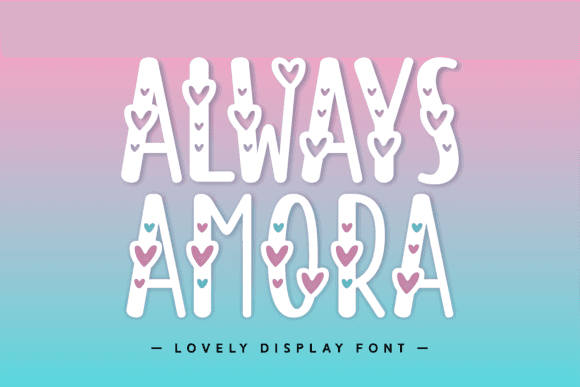
Always Amora Font for Cricut, Silhouette and Printable Designs
Always Amora is a graceful handwritten script font, ideal for use with cutting machines and printable design tools. Its fluid strokes and romantic styling make it a favorite for weddings, events, and creative business branding. With its elegant flourishes and legible characters, Always Amora seamlessly enhances any project, from invitations to logos. This versatile typeface not only captures the essence of sophistication but also serves as an 'always ready font for designs' that can elevate any creative endeavor. Perfect for both digital and print applications, it's a must-have addition to any designer's toolkit.
This font entity is optimized for precision crafting and digital printing, offering soft curves and graceful letter connections for flawless results in vinyl, paper, and fabric applications.
From invitations to labels and wall art, Always Amora delivers elegant impact with every word.
- Wedding signage and invitations
- Custom shirts, mugs, and gifts
- Printable quotes and wall art
- Party labels, tags, and favors
- Digital stationery and cards
- Romantic and flowing script design
- Perfect for cutting and print projects
- Wedding-ready elegance with clean paths
- Easy to use across crafting platforms
- Instant visual charm for decor and gifts
Q: What type of font is Always Amora?
A: It’s a romantic handwritten script font designed for crafting, cutting, and printable use.
Q: Is Always Amora good for printable decor?
A: Absolutely. Its romantic style is ideal for quotes, invitations, signage, and more.